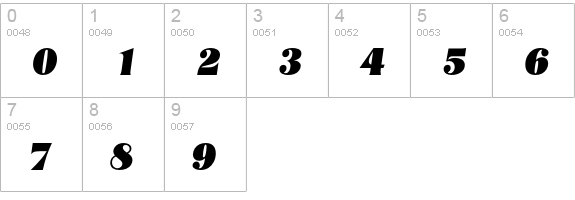
NashvilleEF-HeavyItalic Font Details
NashvilleEF-HeavyItalic is a bold and striking font that exudes elegance and sophistication. Its heavy italic style adds a touch of drama and flair to any design project. The unique and eye-catching letterforms of this font make it perfect for headlines, logos, and other display purposes. The best part? NashvilleEF-HeavyItalic is completely free to download at FontsMarket.com! This means you can easily add this stylish font to your collection without breaking the bank. Whether you're a designer looking to make a statement or a creative individual wanting to add a touch of personality to your projects, NashvilleEF-HeavyItalic is the perfect choice. Download it today and elevate your designs with this stunning font.